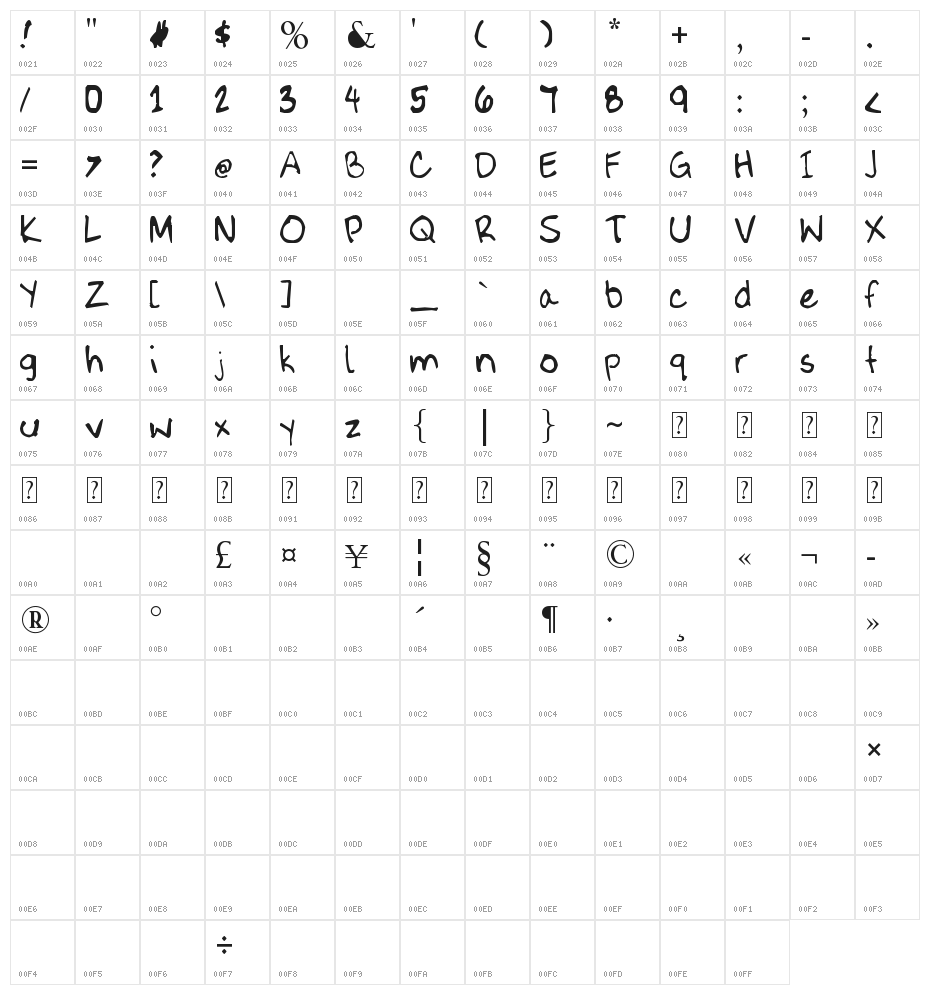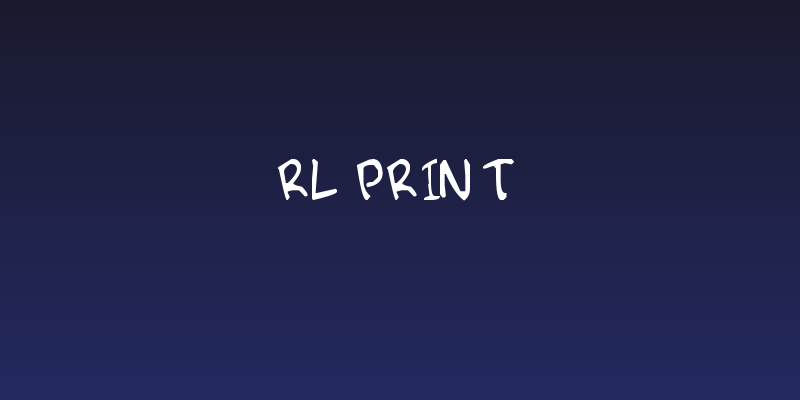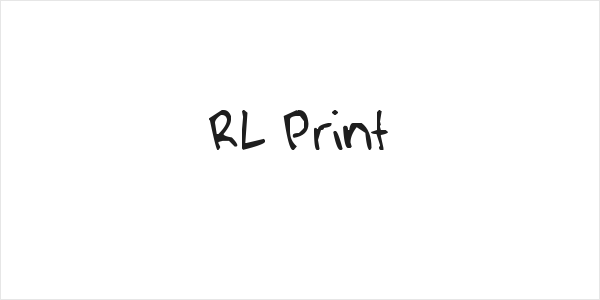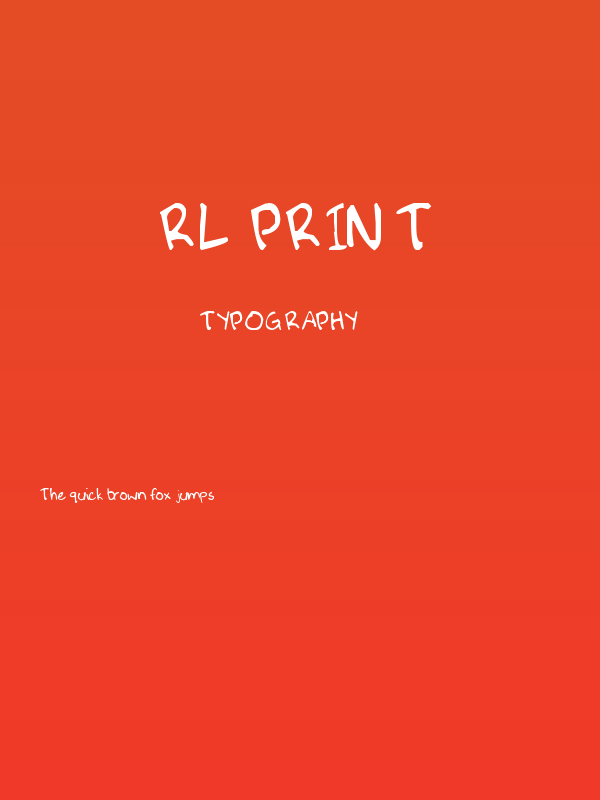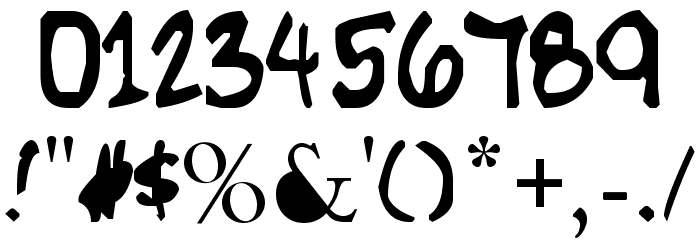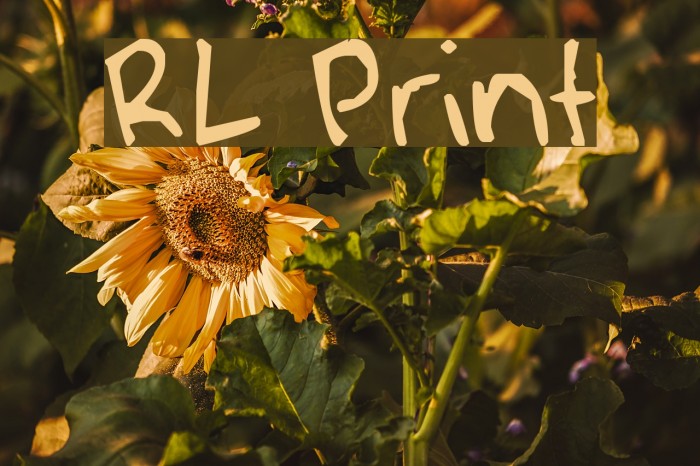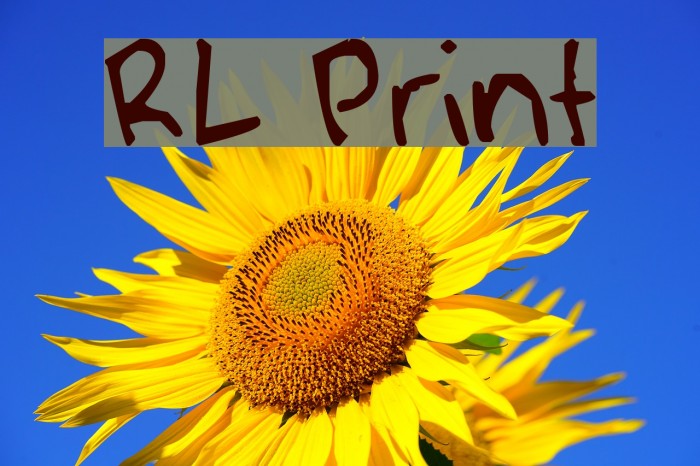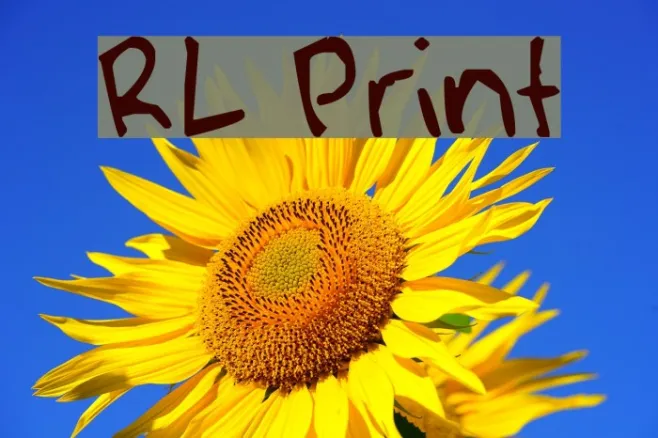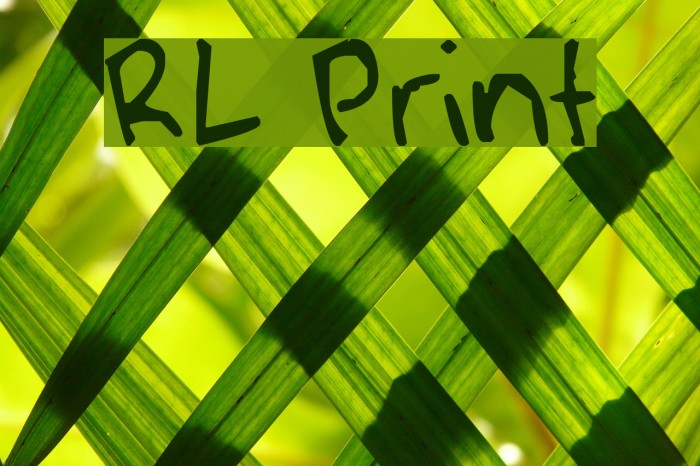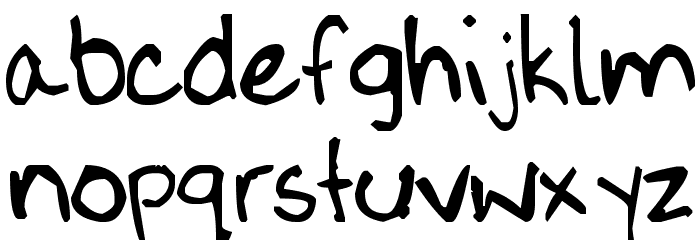
RL Print Font
RL Print Description
This font exudes a playful and informal style, characterized by its hand-drawn appearance. The letters have a casual, slightly irregular form, giving them a lively and dynamic feel. The strokes vary in thickness, adding to the font's organic and spontaneous look. The uppercase and lowercase letters maintain a consistent style, with rounded edges and a slightly tilted orientation. Numbers and special characters follow the same whimsical design, making the font suitable for creative and fun projects. Its unique style captures attention and conveys a sense of individuality and creativity.
| Proposed Projects | Ideal for children's books, comic strips, casual branding, and creative posters. |